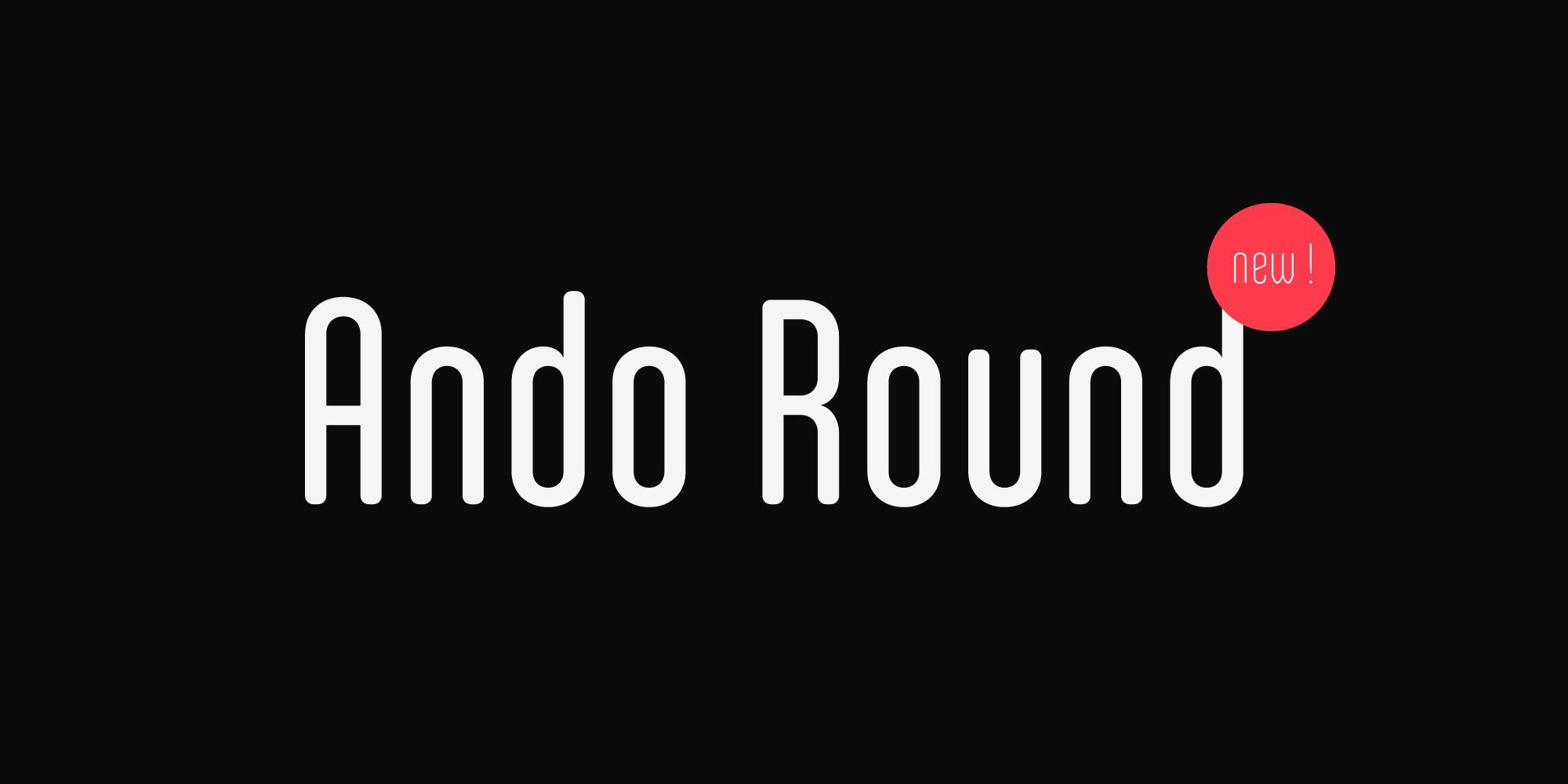
Ando Round Font is perfect for tech startups, mobile app interfaces, children's educational apps, healthcare communications, modern signage, friendly corporate branding, user-friendly websites, contemporary logos, and any project requiring typography with soft geometric appeal and approachable modern aesthetics.
What makes Ando Round Font exciting is its harmonious balance that combines geometric precision with organic warmth through carefully rounded letterforms that create an instantly approachable and contemporary visual experience. This innovative typeface embodies the perfect fusion of technical accuracy and human-centered design with softened edges that reduce visual tension while maintaining excellent readability and professional credibility. The font's friendly character and modern sophistication make it perfect for brands that want to appear both trustworthy and accessible in today's digital landscape.
The Ando Round Font family includes multiple weights from thin to black, featuring complete uppercase and lowercase alphabets, numerals, punctuation marks, and contemporary design elements. The font maintains consistent rounded elegance throughout all weights while ensuring optimal performance across digital platforms and providing exceptional versatility for both interface design and brand communication applications.
Whether you're designing user interfaces for mobile applications, creating contemporary brand identities, or developing modern signage with approachable aesthetics, Ando Round Font Free Download delivers unmatched contemporary appeal and user-friendly sophistication. This exceptional typeface transforms ordinary text into welcoming visual communications that bridge the gap between technical functionality and human warmth. The font's modern character makes it ideal for technology companies, healthcare brands, and educational institutions. Download this remarkable font today and bring the perfect balance of precision and approachability to your design projects with authentic contemporary elegance and user-centered sophistication.